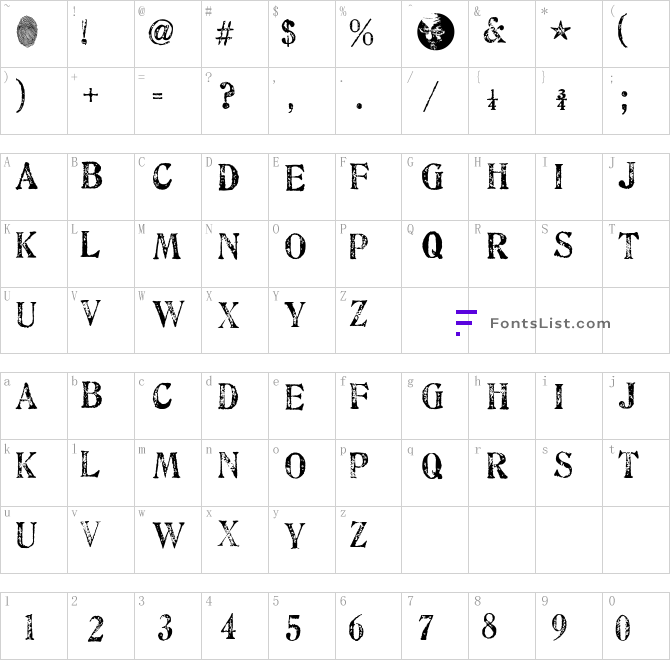
Artistamp-Medium.ttf is a very beautiful artistic font, Artistamp-Medium.ttf is widely used in the design and printing of various books and pictures,Artistamp-Medium.ttf has a strong visual impact,Artistamp-Medium.ttf is a commonly used font in newspapers, magazines and books, and is used in posters, e-commerce Poster design, store design, logo design, font design and other fields.Artistamp-Medium.